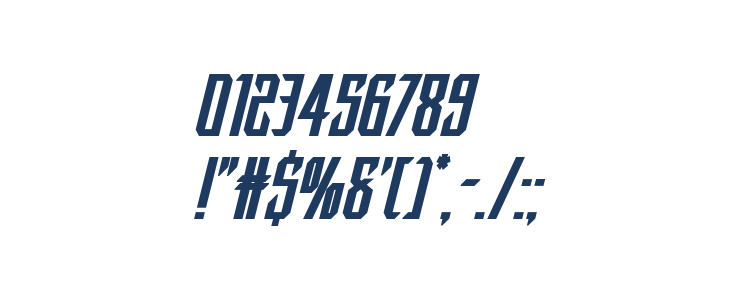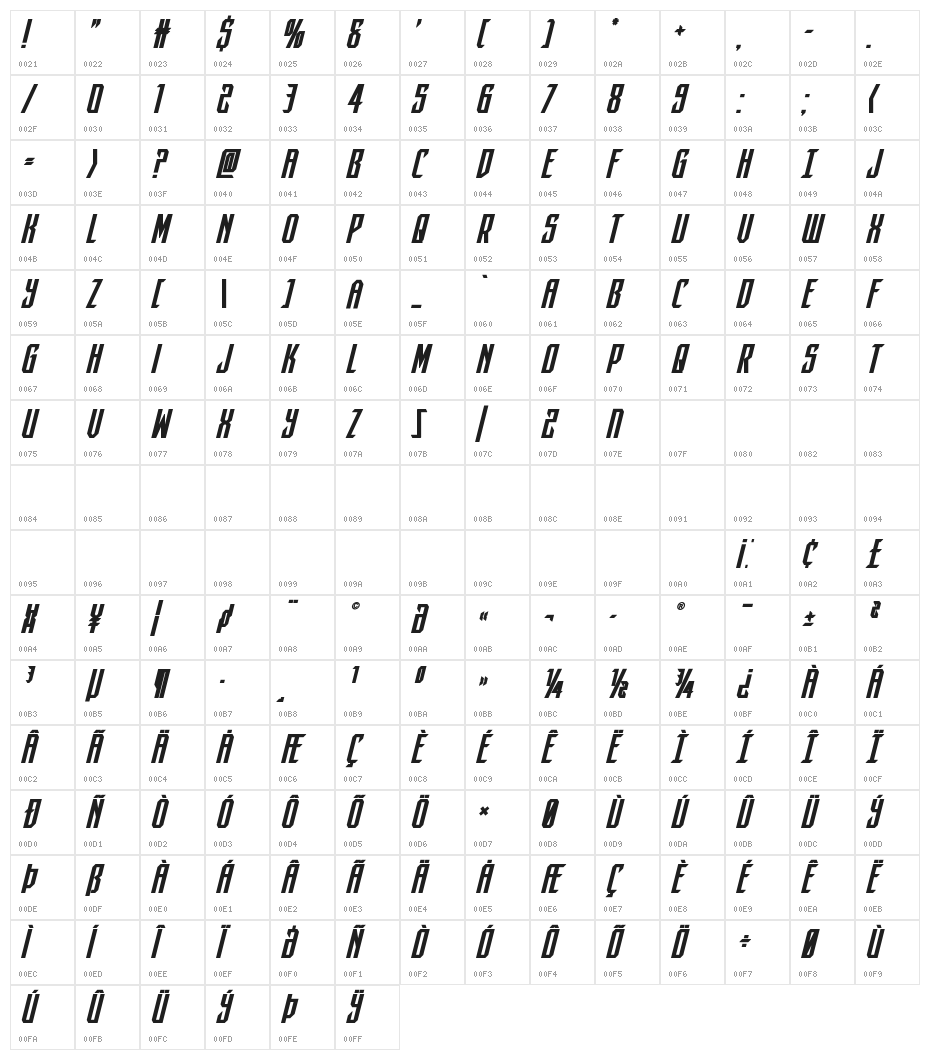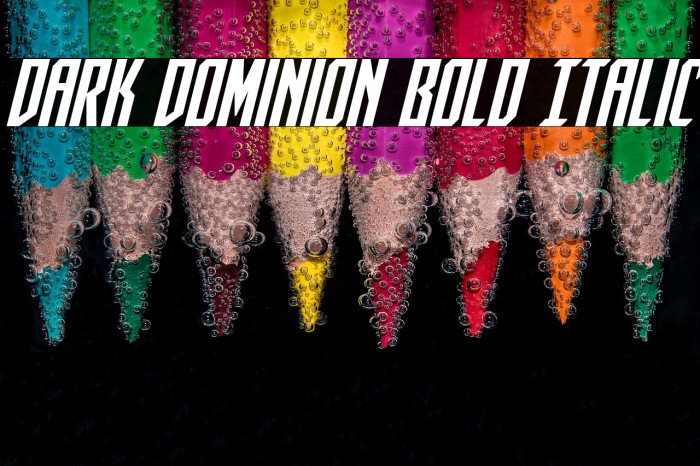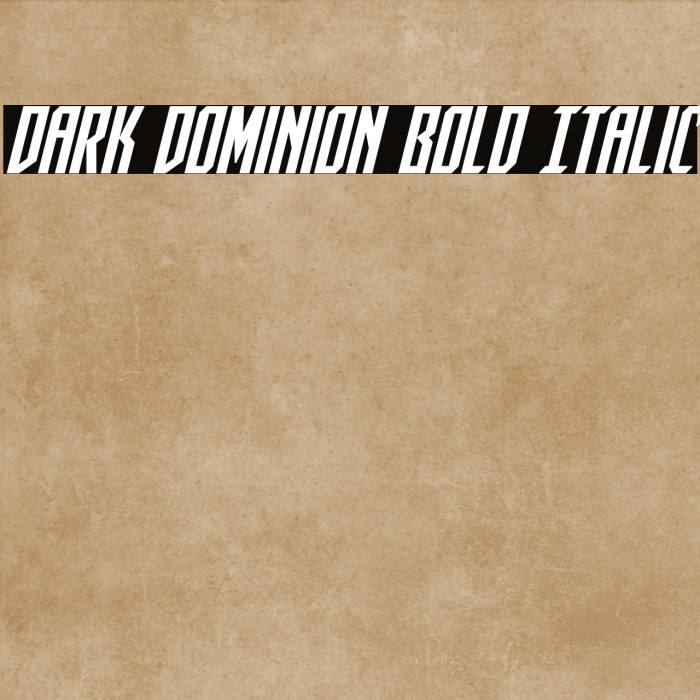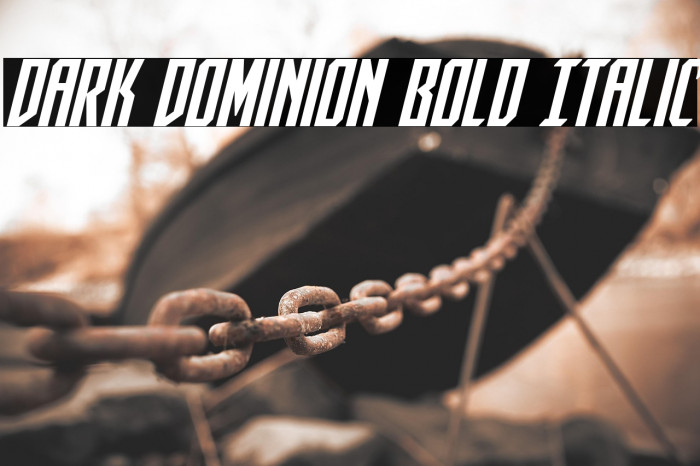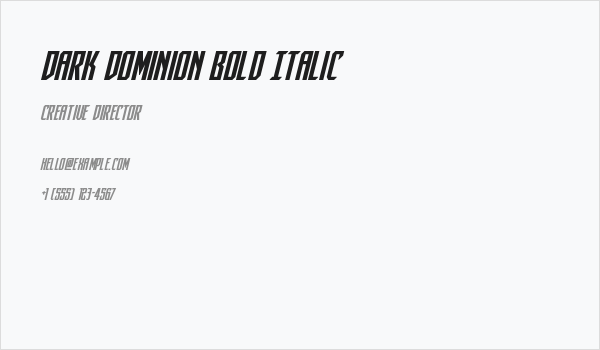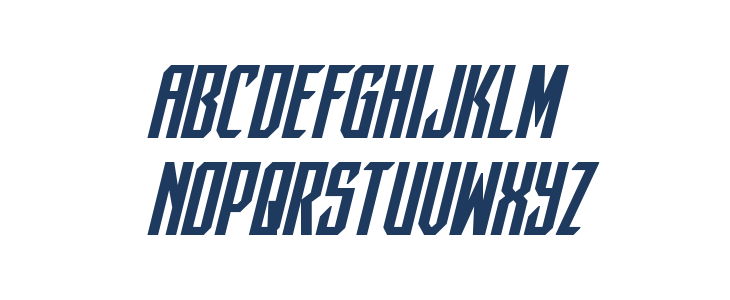
Dark Dominion Bold Italic Font
Dark Dominion Bold Italic Description
This font features a bold and italicized style with a strong, dynamic presence. The characters are sharply angled and elongated, giving them a sense of motion and energy. The uppercase and lowercase letters maintain a consistent slant, enhancing the italic effect. The numbers and special characters follow the same stylistic approach, ensuring uniformity across all glyphs. The font's design is striking and modern, making it suitable for attention-grabbing headlines or impactful branding. Its bold weight and italic style contribute to its commanding appearance, while the condensed width allows for efficient use of space.
Proposed ProjectsIdeal for sports branding, dynamic posters, video game titles, and edgy graphic design projects.